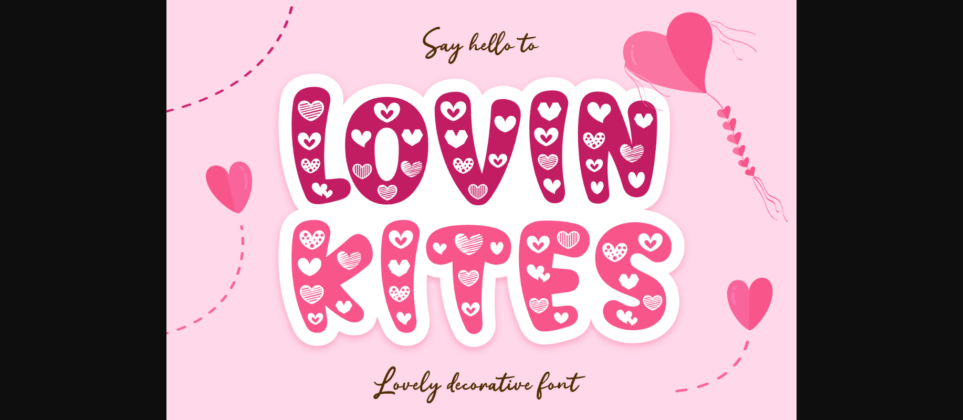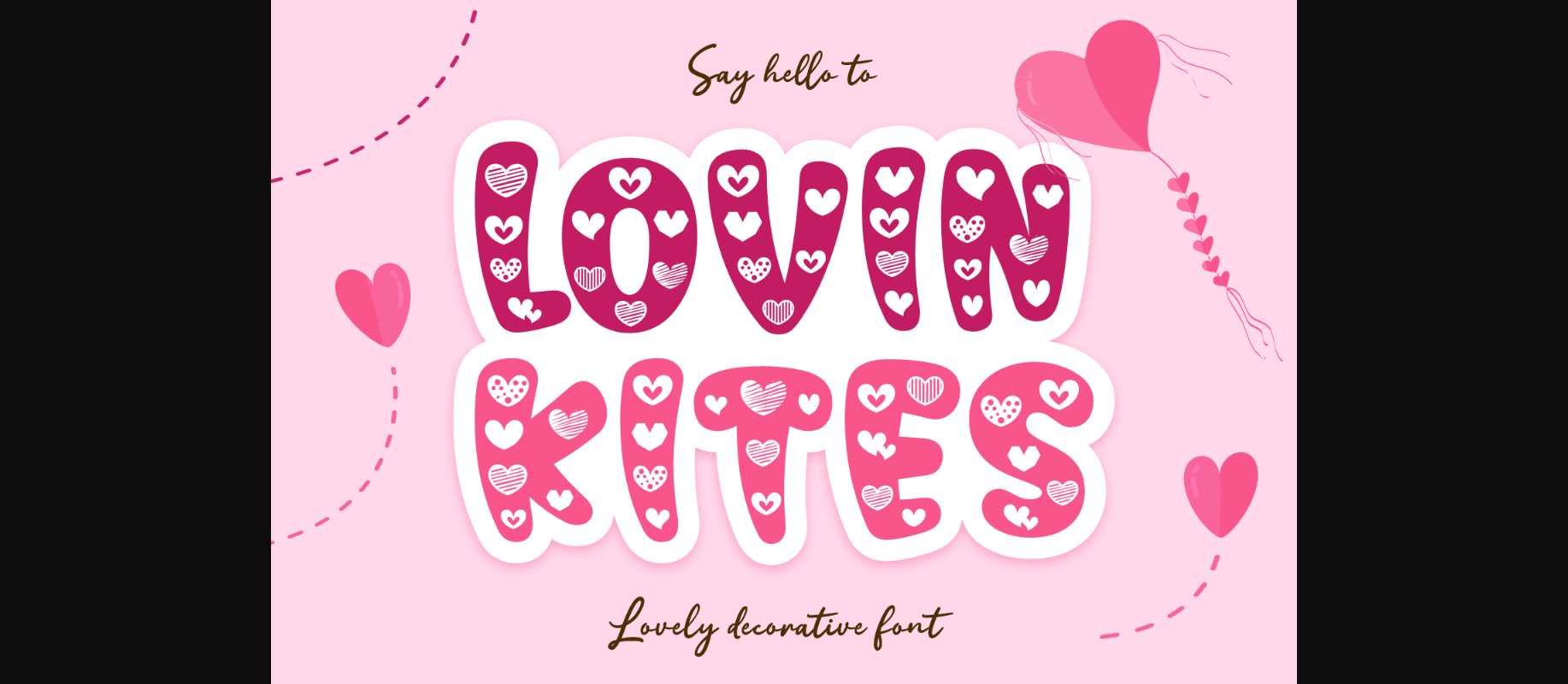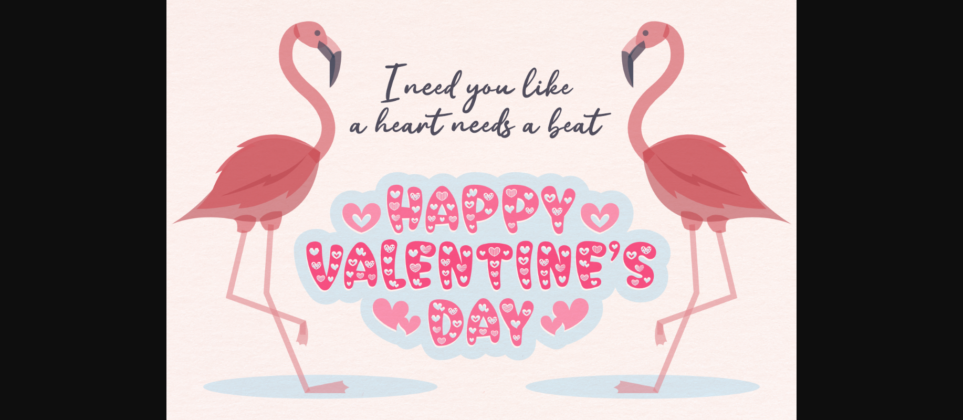
About Lovin Kites Font
Lovin Kites is a cute and romantic decorative font. The font features lots of little hearts inside the characters, making it suitable for a multitude of projects. Keep in mind that the fond is PUA encoded, meaning that you can access all delightful glyphs and swashes with ease.